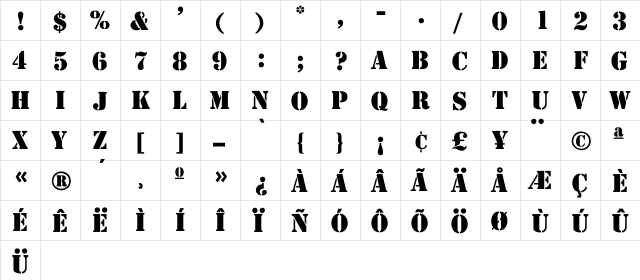
Stencil-Normal Regular
Design Context for Stencil-Normal Typeface
Stencil-Normal borrows the utilitarian aesthetic of stencil lettering, with its characteristic cutaways and no-frills construction lending an industrial edge.
Ideal for industrial branding, streetwear, military-adjacent aesthetics, and urban signage projects.
Pro Tip: Pair Stencil-Normal with raw, utilitarian design elements — exposed concrete textures, flat colour, and minimal ornamentation suit it well.